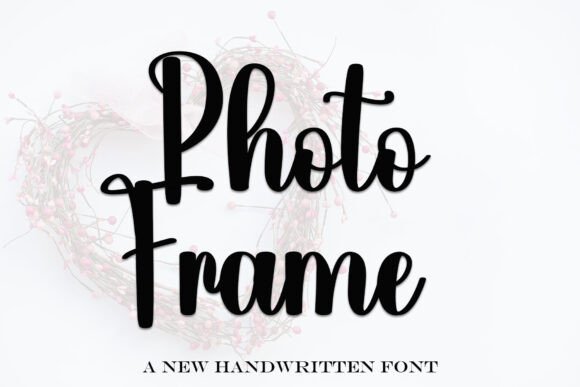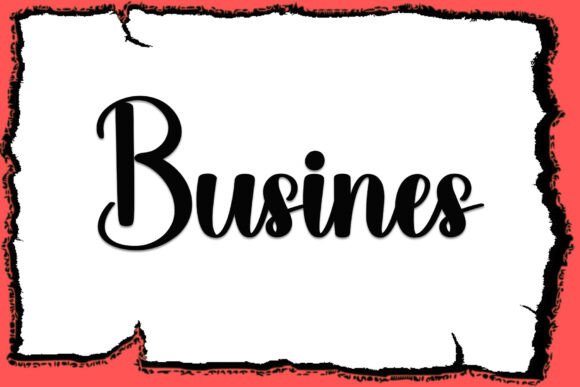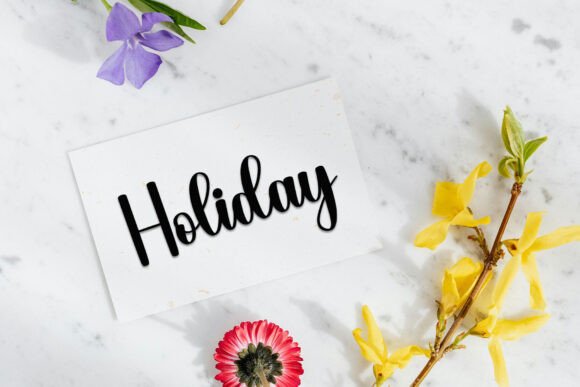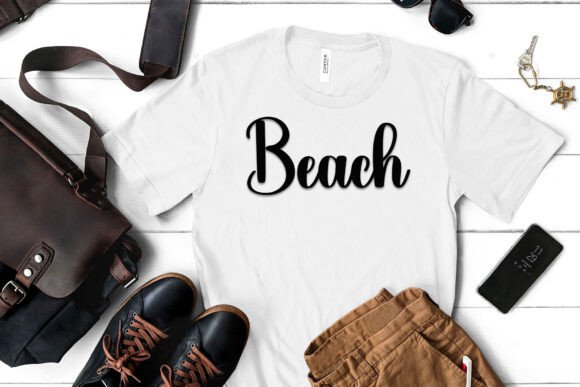
Photo Frame Font
About the Photo Frame Font
Discover the charm of Photo Frame Font. This font is a perfect blend of modern aesthetics and classic appeal. Photo Frame is a sweet and cursive handwritten font. This gentle font will look gorgeous on a variety of design ideas. It will add a joyful and romantic touch to each of your projects! Perfectly fit for branding, logo, wedding things, greeting cards, fashion, lookbook, marketing promotion, and any time you want your design to look fancy and elegant but still casual.
Photo Frame’s delicate cursive style excels in headlines, short text blocks on invitations or greeting cards, and branding elements requiring a touch of elegance and playfulness. It works particularly well for projects related to weddings, fashion, or beauty, where a romantic and slightly whimsical feel is desired. However, its low x-height and connected letters make it unsuitable for body copy or UI elements requiring high readability.
Consider pairing Photo Frame with a clean sans-serif like Lato for a contemporary balance or a classic serif like Garamond for a more traditional feel. For a more playful look, a geometric sans-serif such as Montserrat could be effective. Avoid pairing it with other script fonts, which would create visual clutter.
The overall personality of Photo Frame is best described as charming and romantic, lending itself to brands that project a feeling of warmth, intimacy, and handcrafted quality.
Photo Frame Font Usage Examples
Photo Frame Font Example